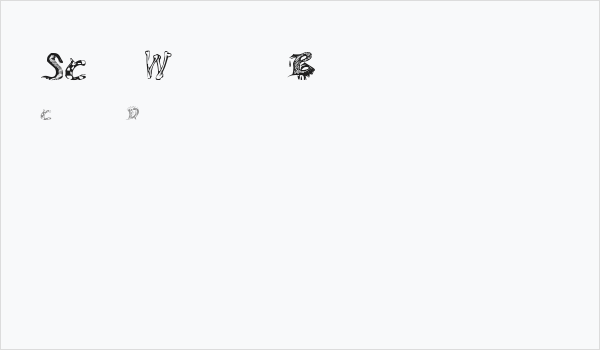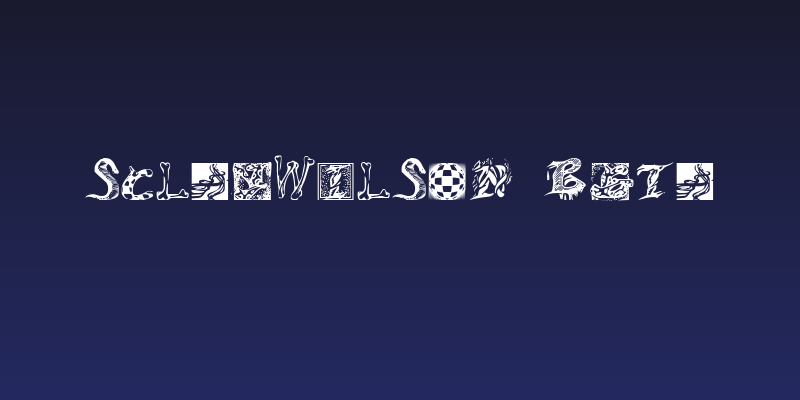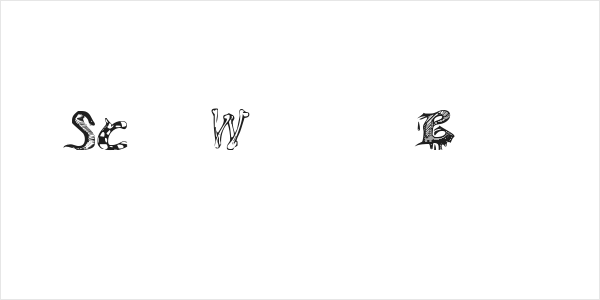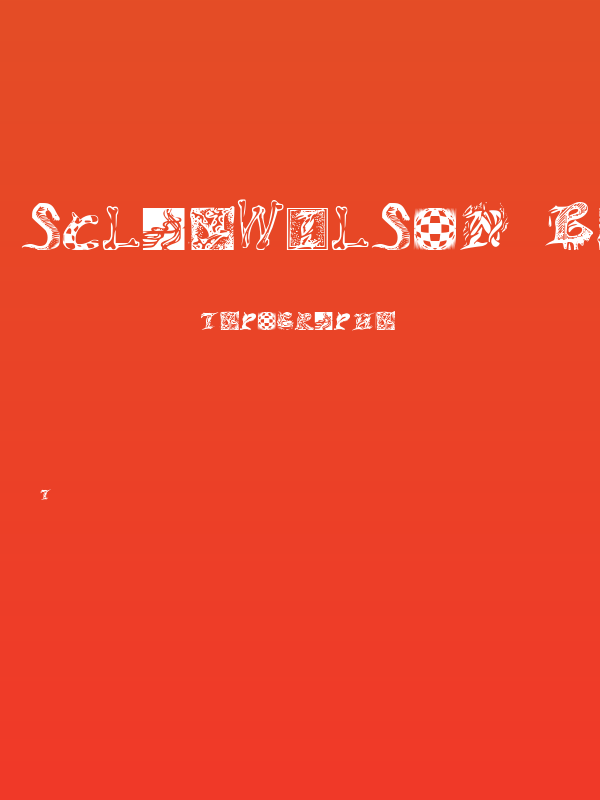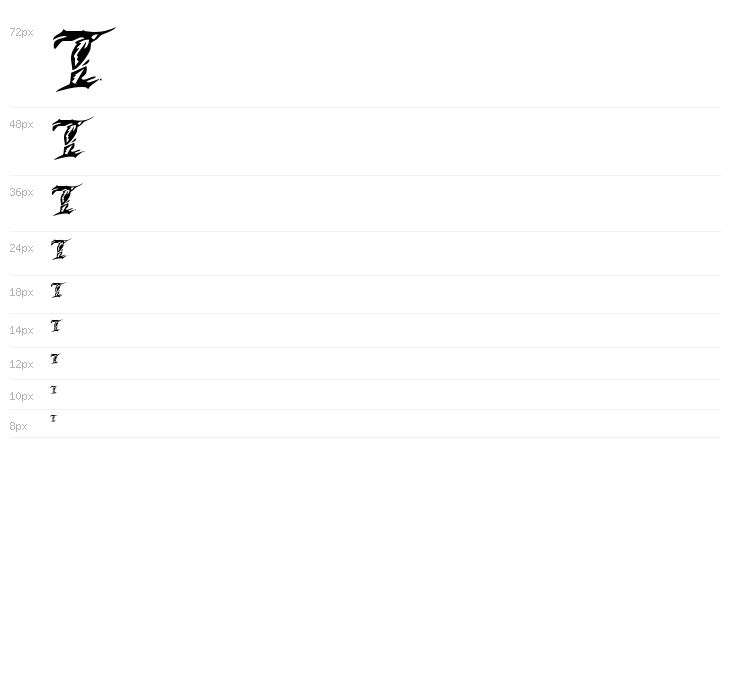
SClayWilson-Beta Font
SClayWilson-Beta Description
This font is a highly decorative and artistic typeface, characterized by its intricate and elaborate design. Each letter is uniquely styled with complex patterns and illustrations, giving it a hand-drawn, almost surreal appearance. The font features a mix of bold, graphic elements and fine details, creating a striking visual impact. The characters are not uniform, with varying shapes and sizes, adding to its eclectic and whimsical nature. This typeface is reminiscent of underground comic art, with a playful yet edgy vibe. It's designed to capture attention and convey a sense of creativity and individuality.
| Proposed Projects | Ideal for graphic novels, album covers, posters, and any project requiring a bold, artistic statement. |